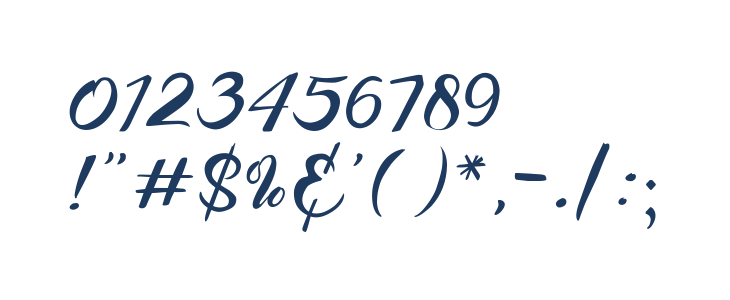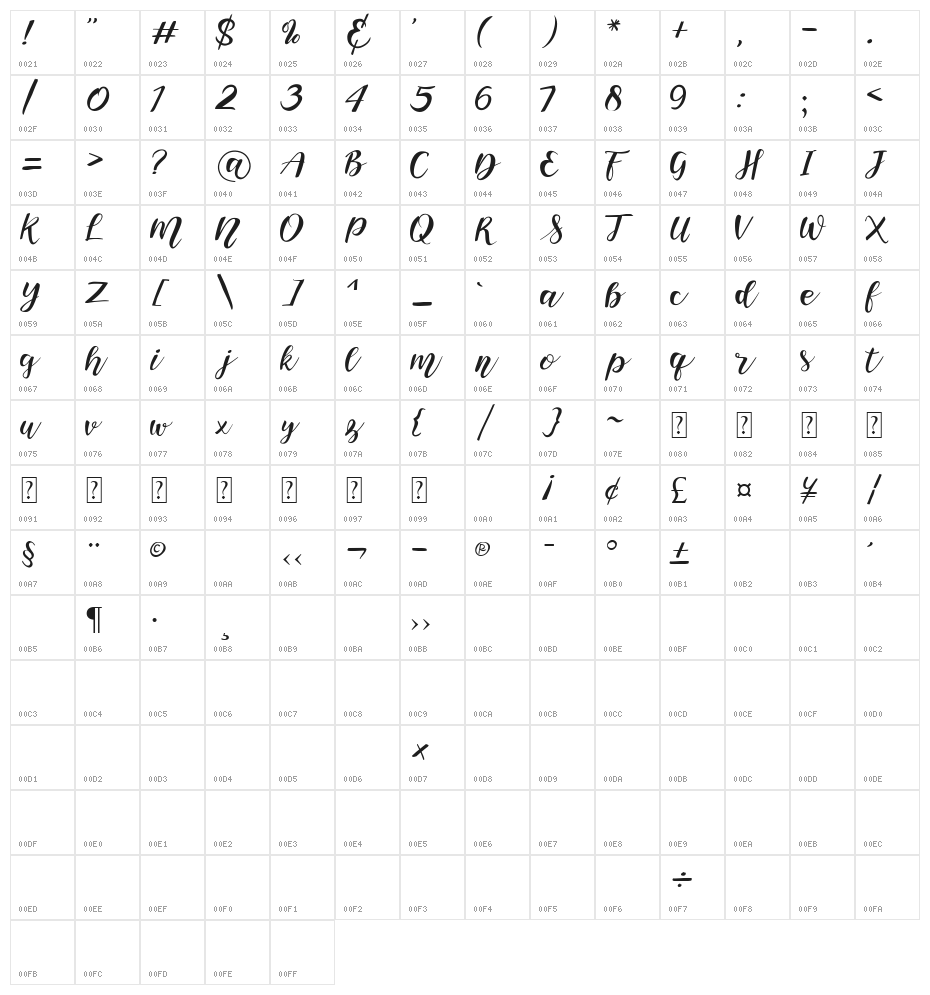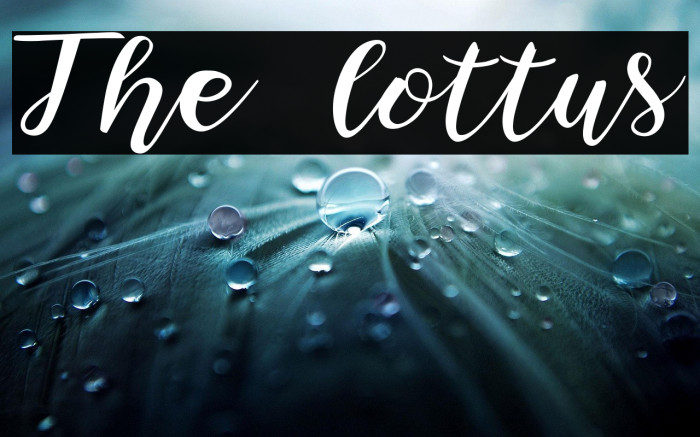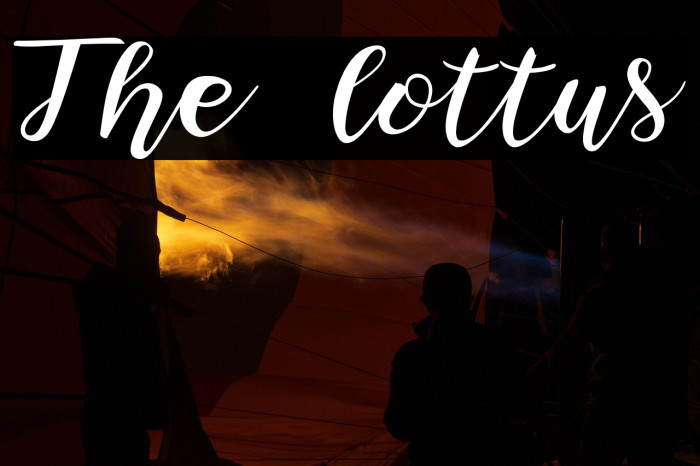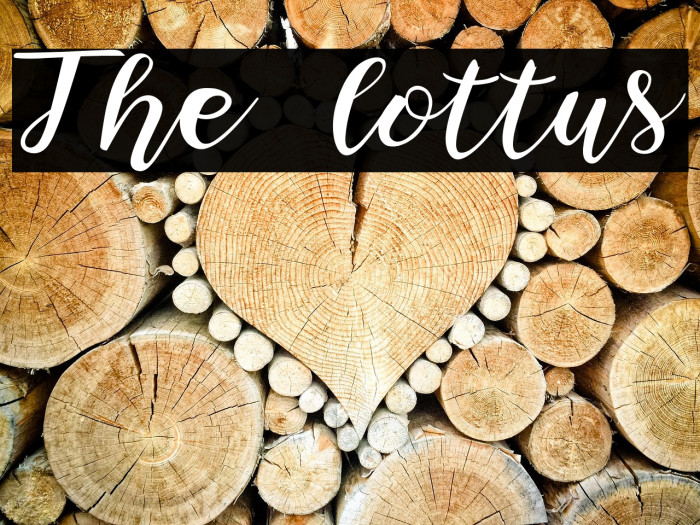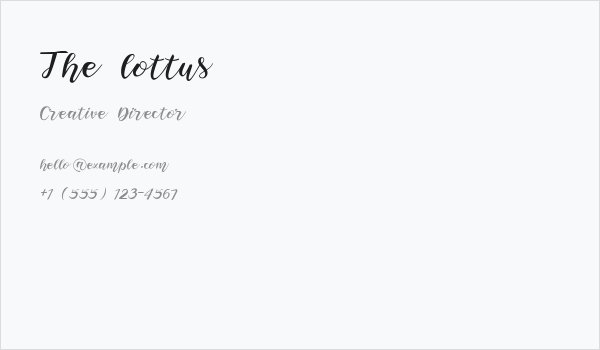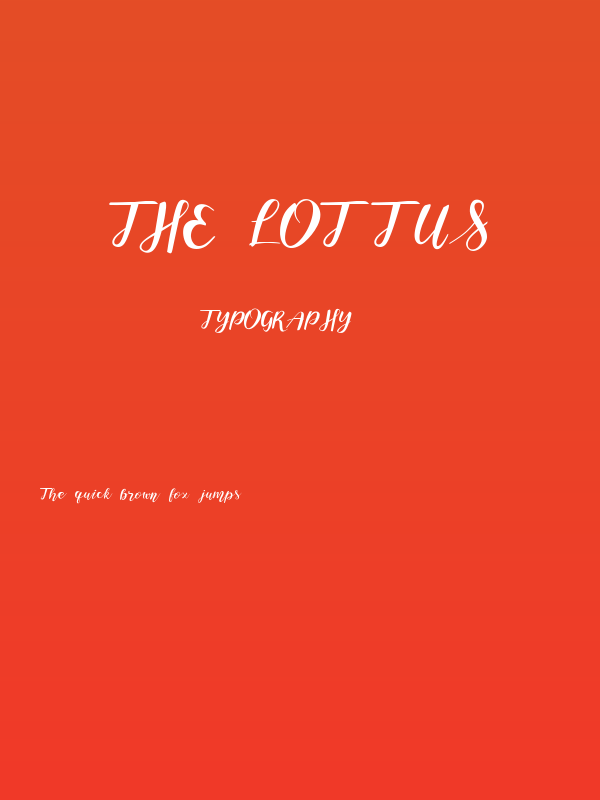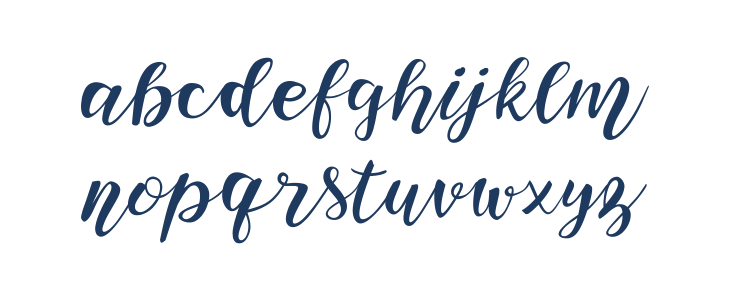
The lottus Font
The lottus Description
This font features a flowing, elegant script style with a modern twist. The characters are crafted with smooth, sweeping curves and a consistent stroke width, giving it a refined and sophisticated appearance. The uppercase letters are bold and prominent, while the lowercase letters maintain a graceful and fluid form. The numerals are stylish and align well with the overall aesthetic, making them suitable for a variety of uses. Special characters are thoughtfully designed, adding to the font's versatility. This font exudes a sense of elegance and charm, perfect for creating eye-catching designs.
| Proposed Projects | Ideal for wedding invitations, branding, logos, and elegant packaging designs. |